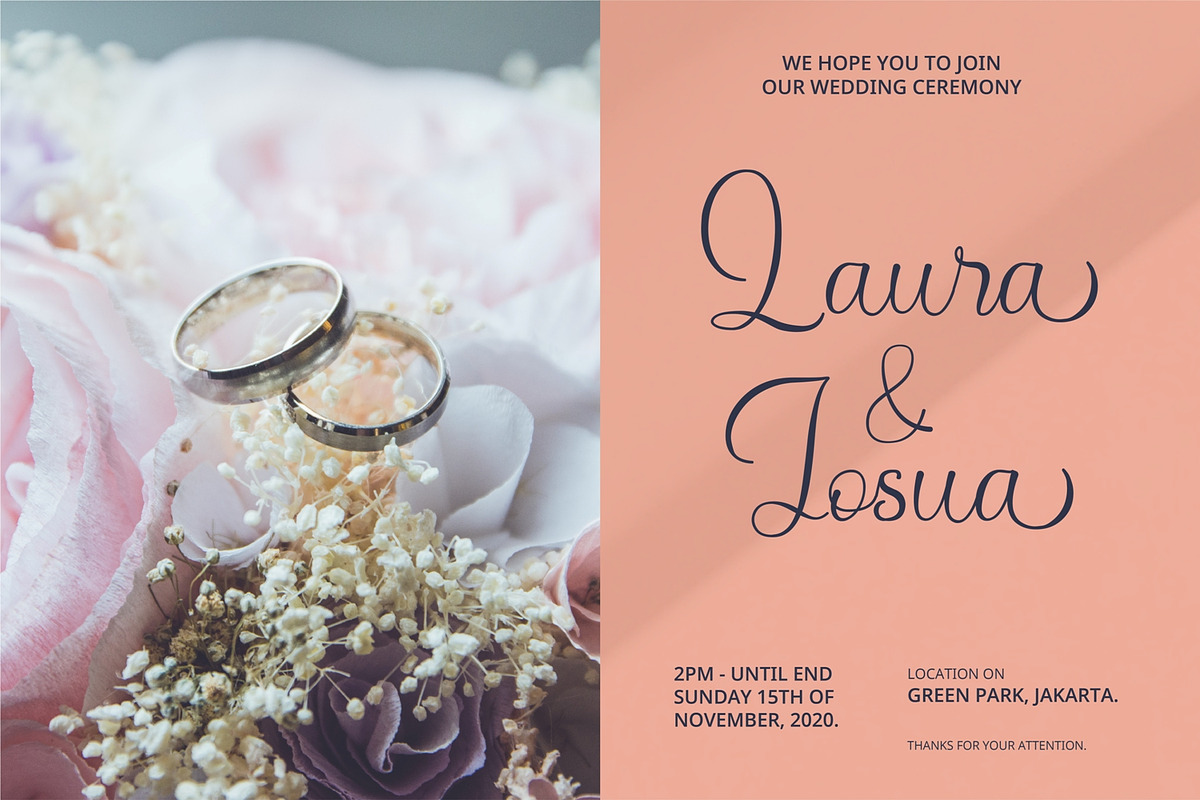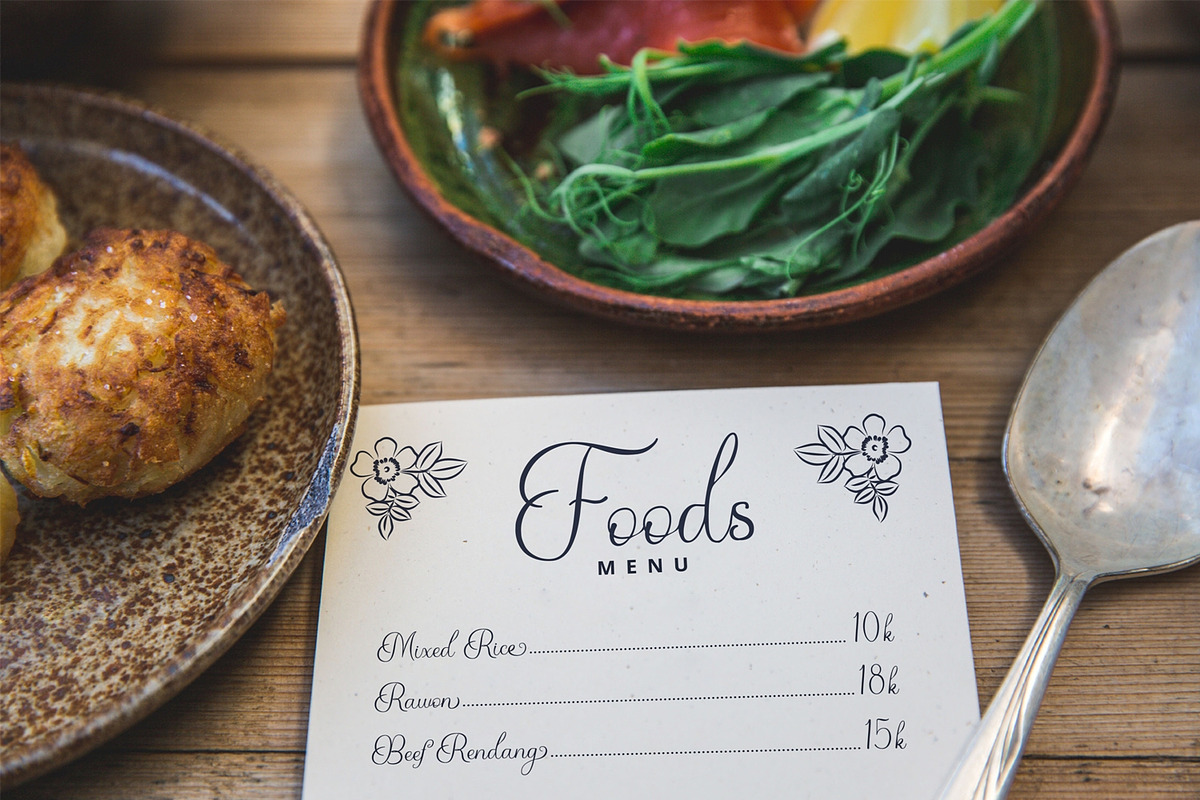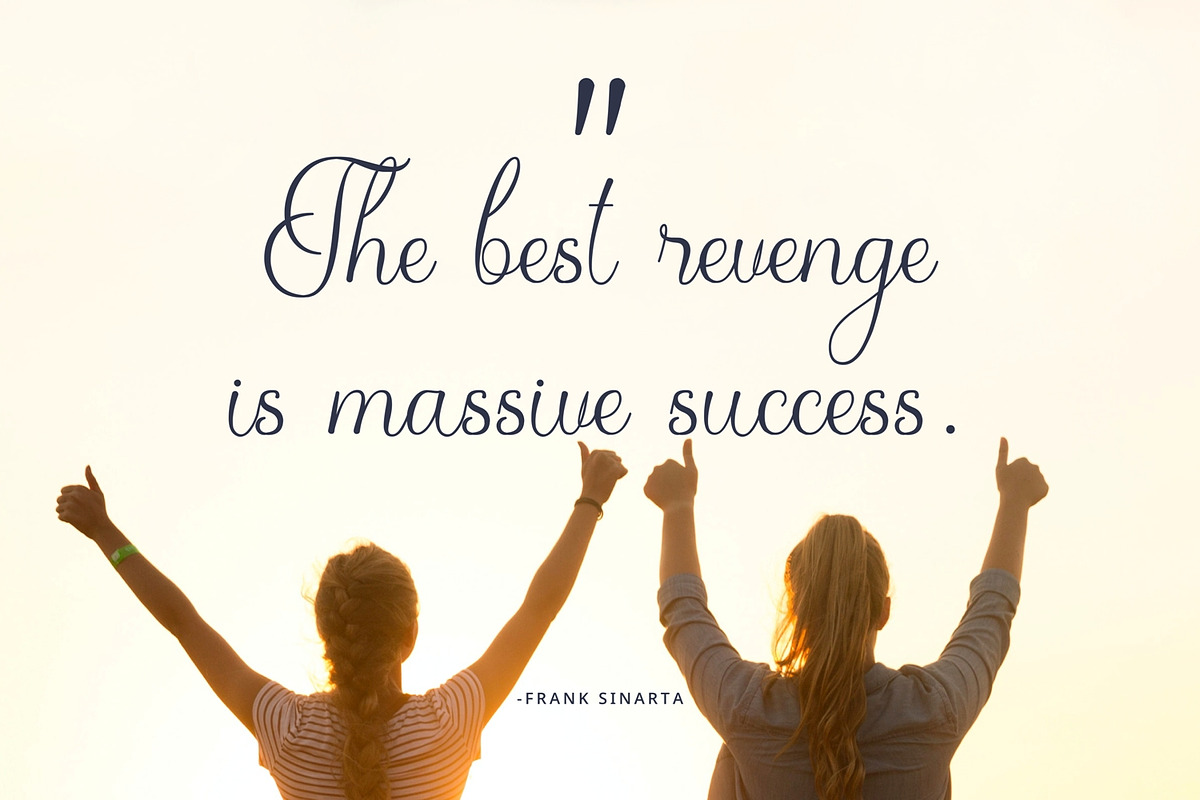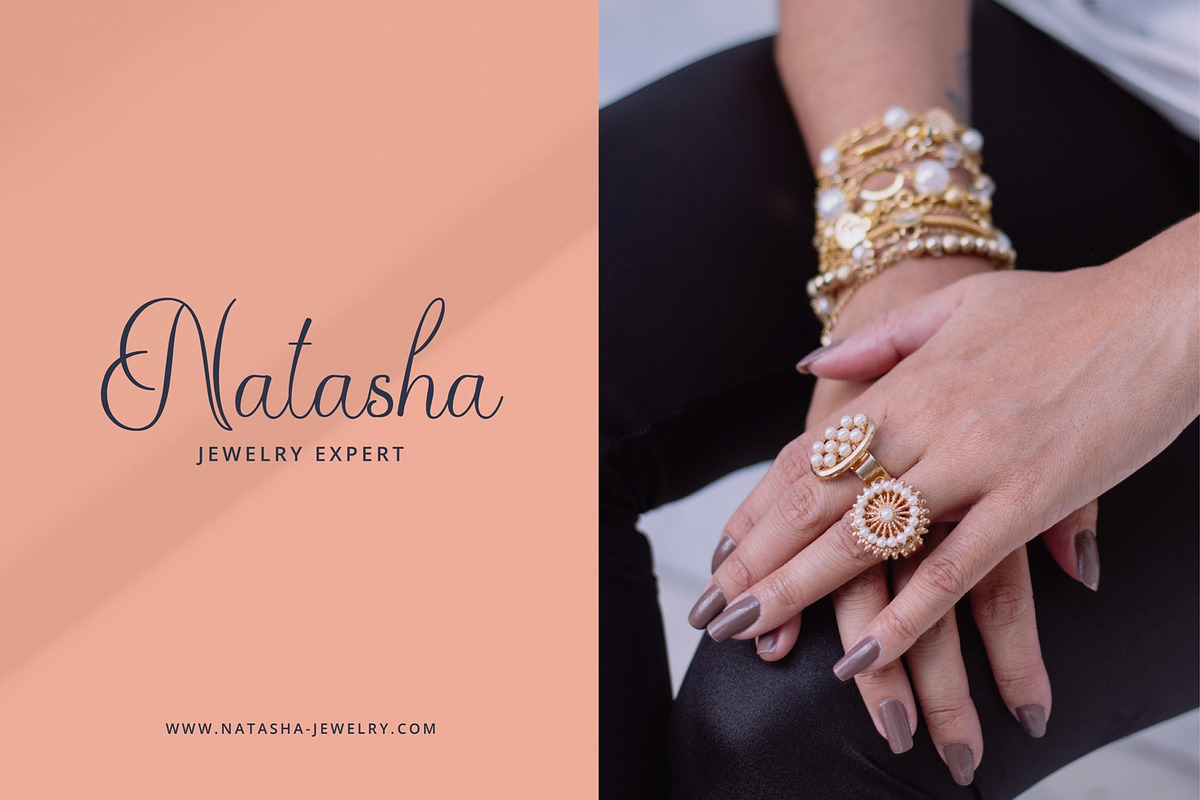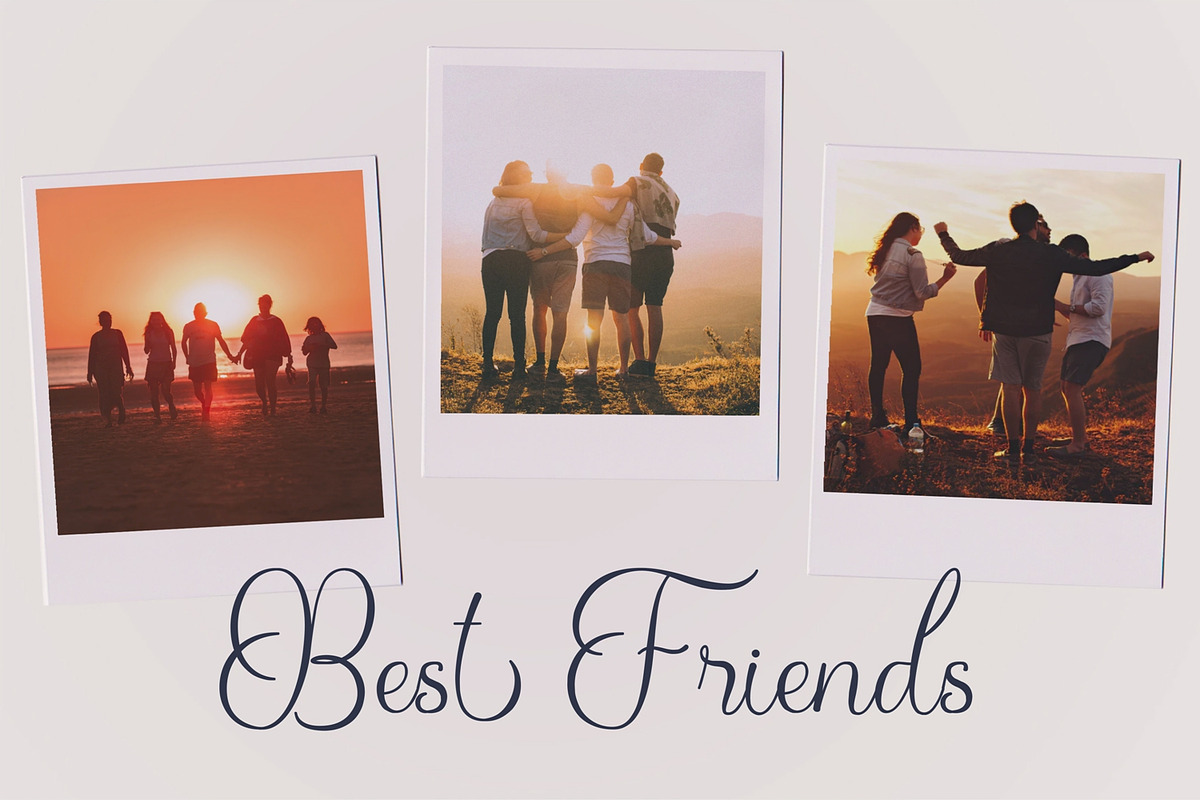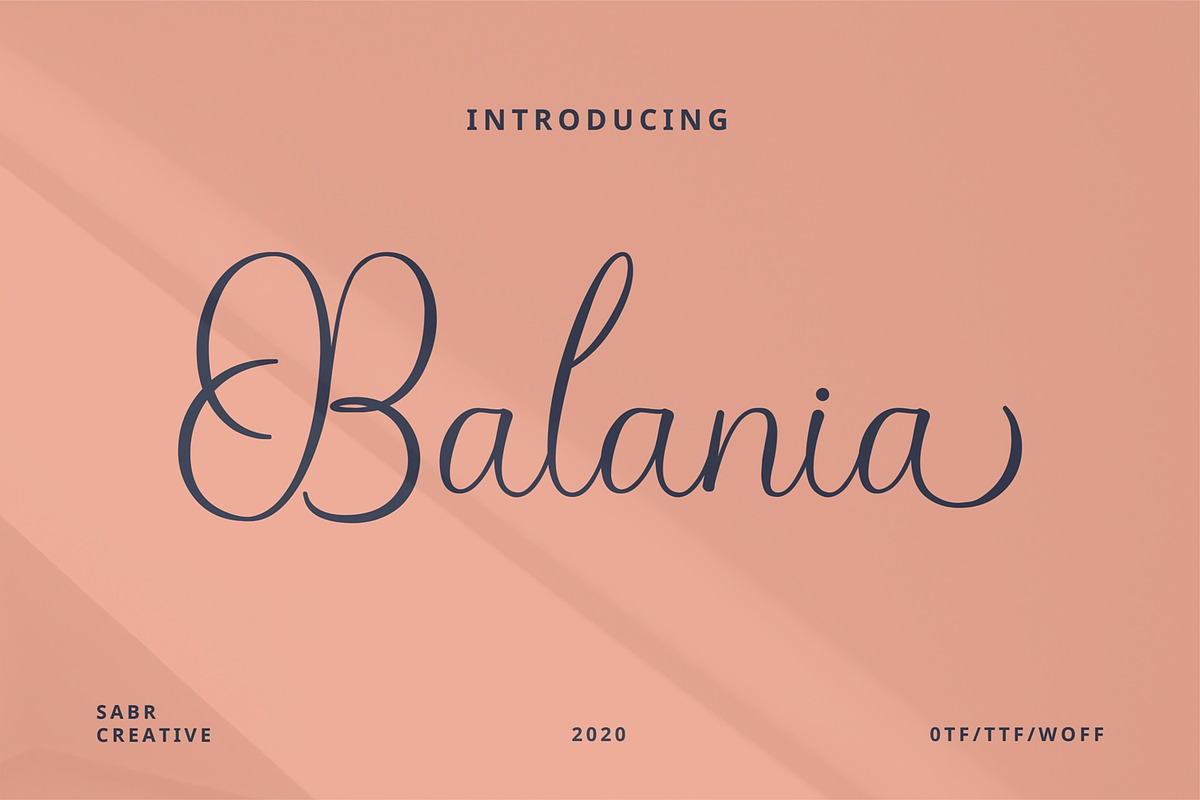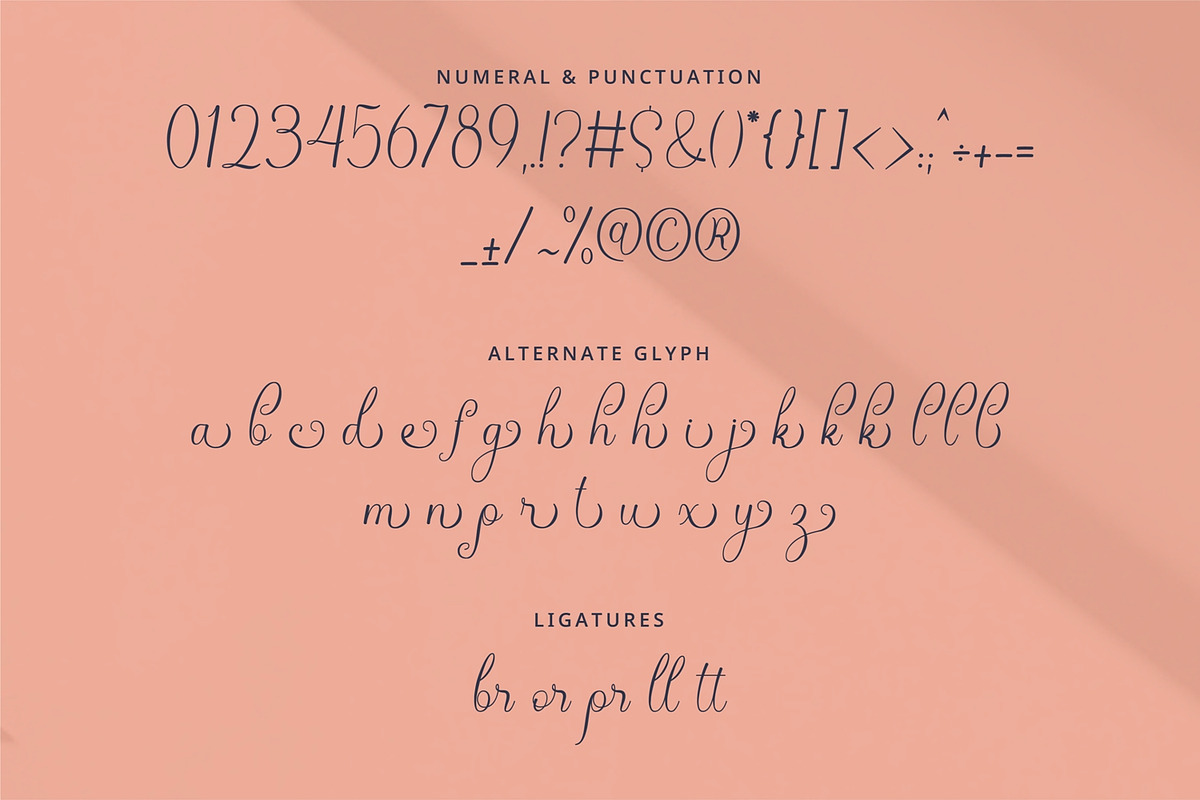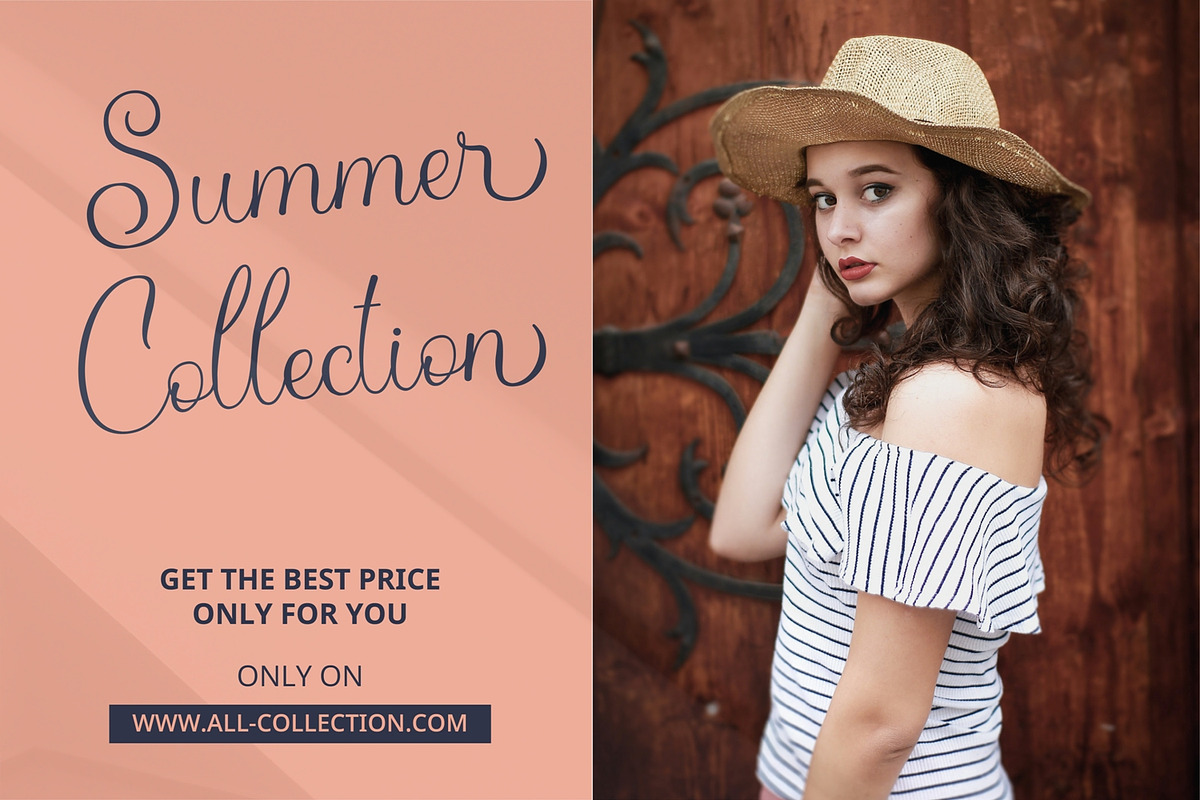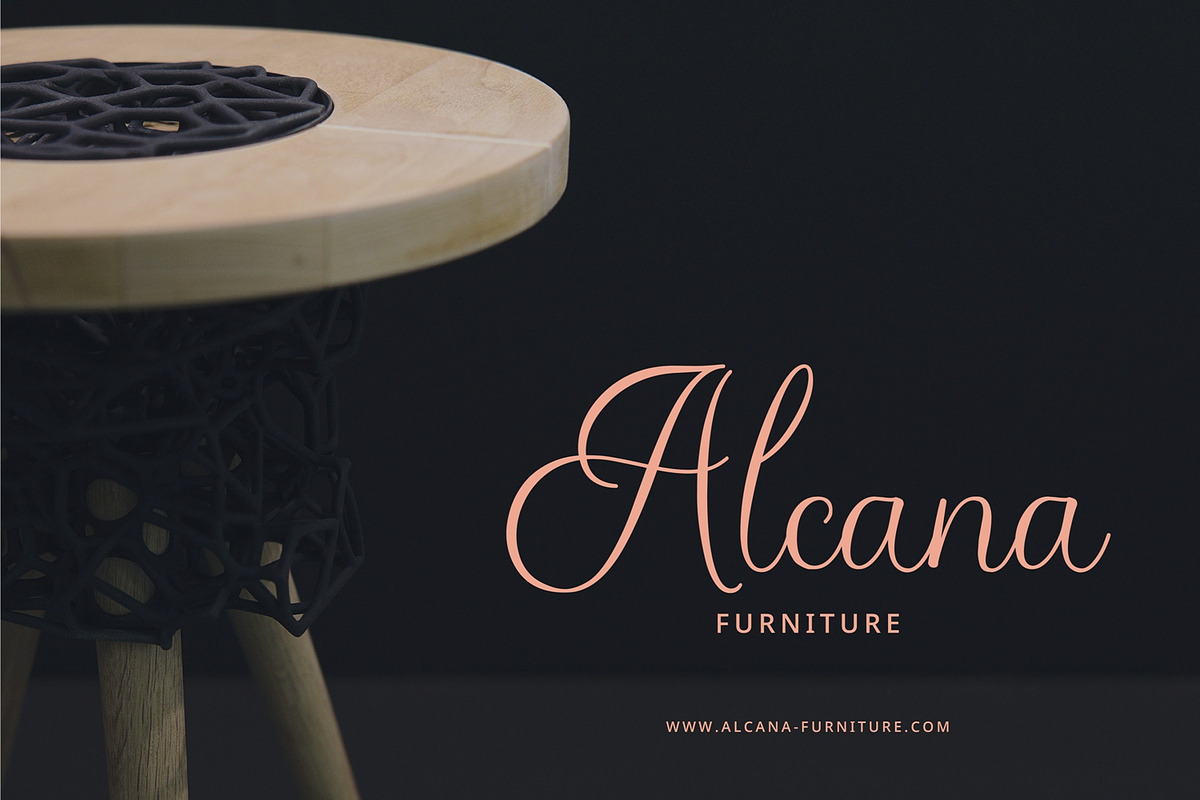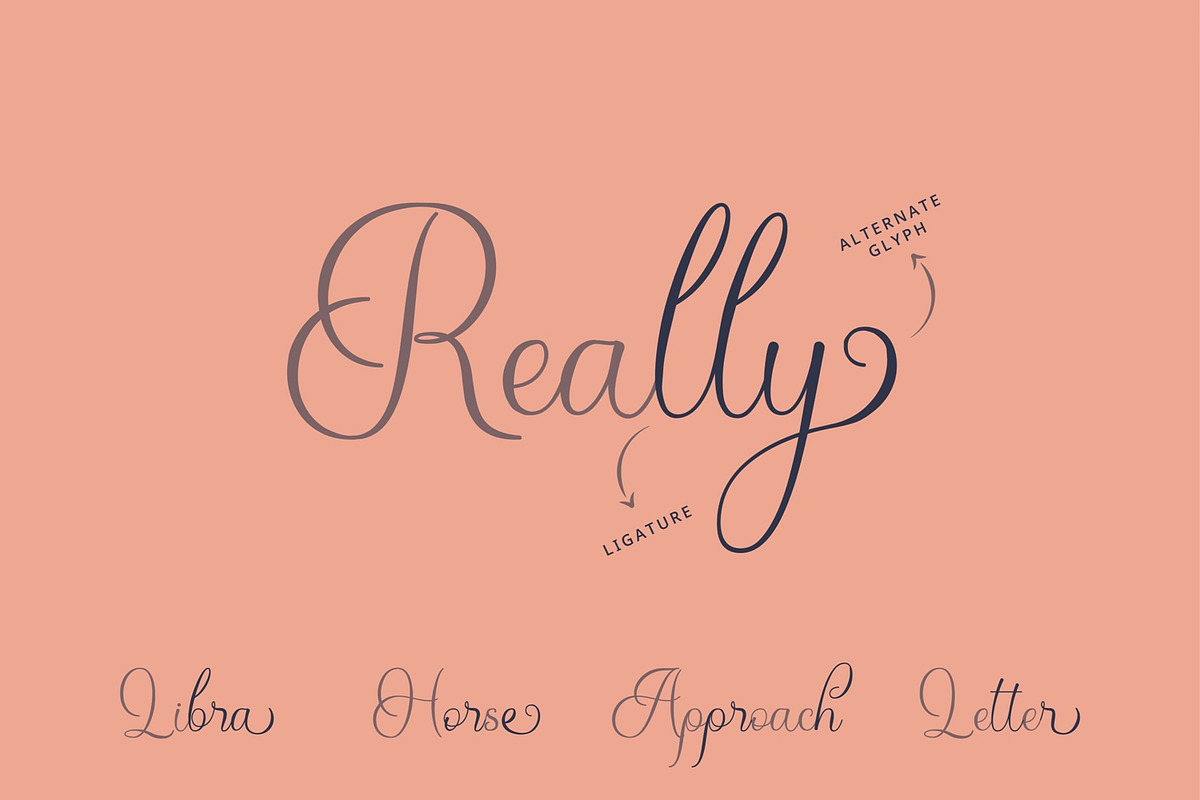
Balania
Balania Script font is perfect for many different project such as logos & branding, headline, invitation, stationery, wedding designs, social media posts, advertisements, product packaging, product designs, label, photography, watermark, special events or anything.